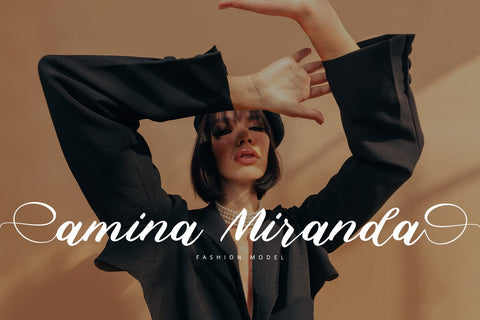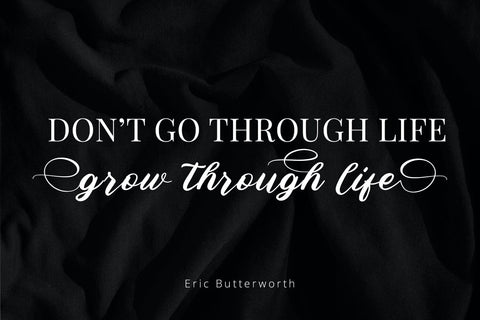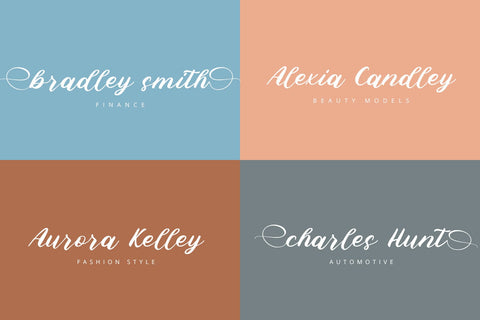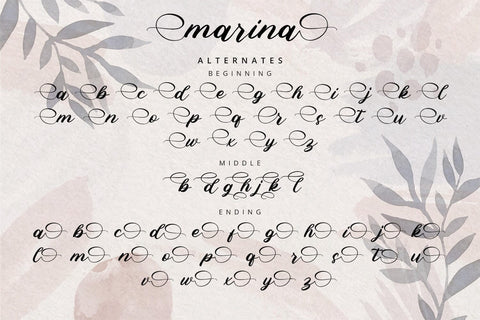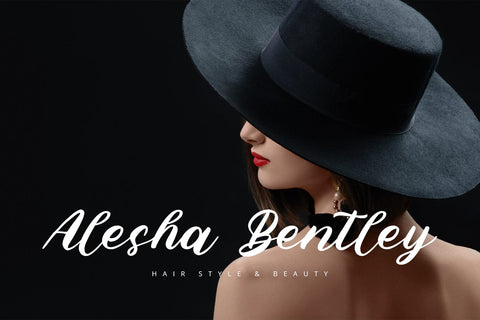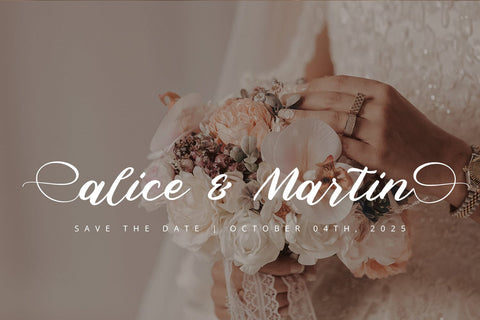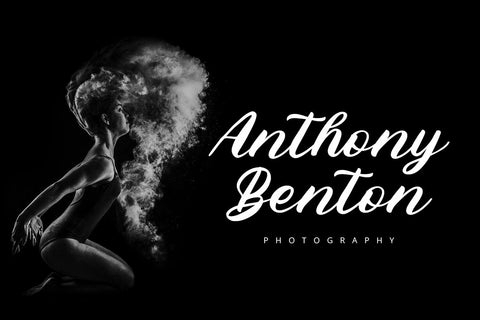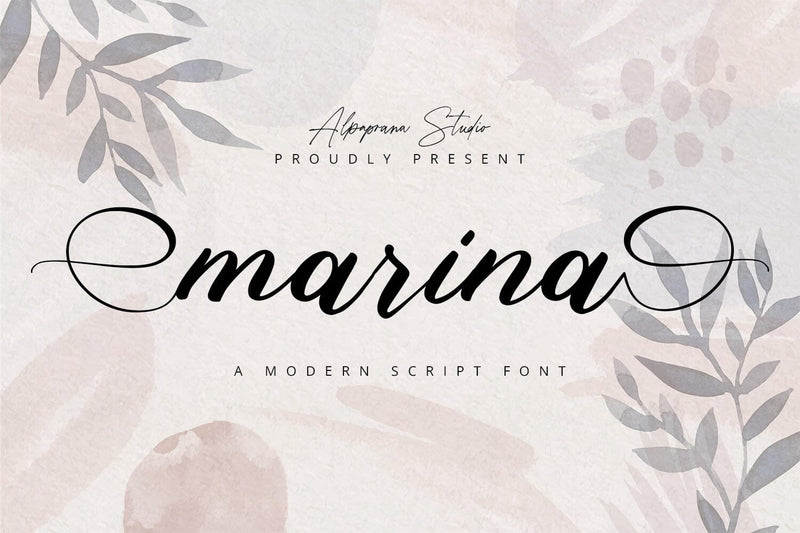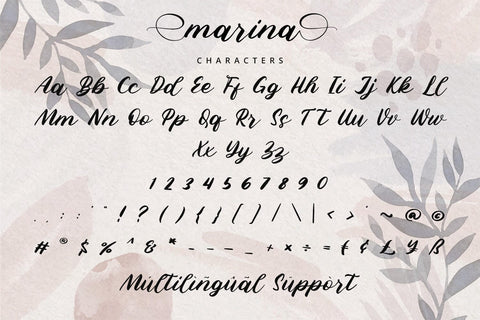
Marina - Modern Script Font
Marina is a stylish script font with authentic and modern feels. It will be perfectly used for Branding, Logo Design, Lettering, Logotype, Clothing, Poster, magazine, packaging, posters, shopping bags, t-shirts, book covers, photography, special events and other design project.